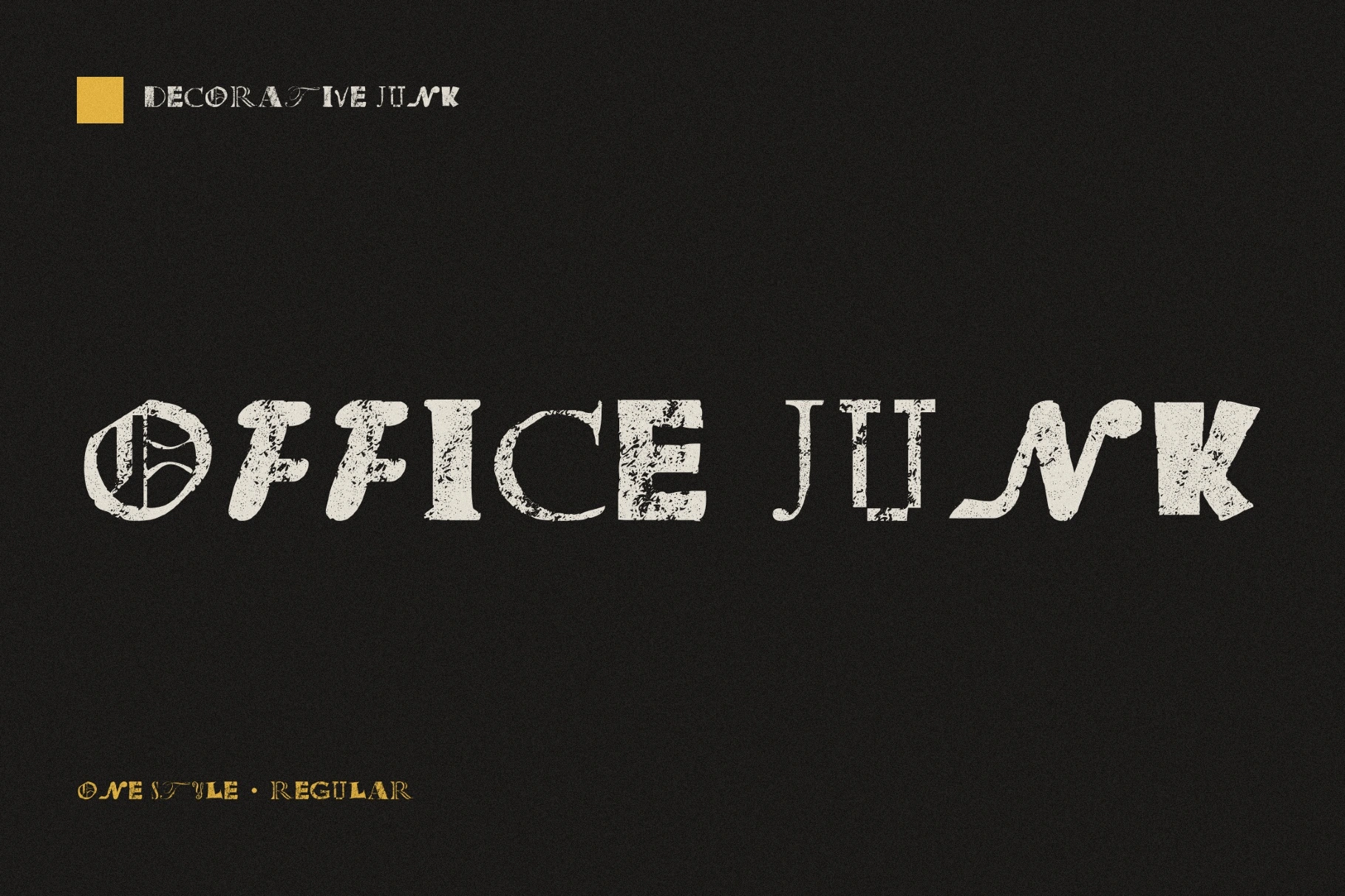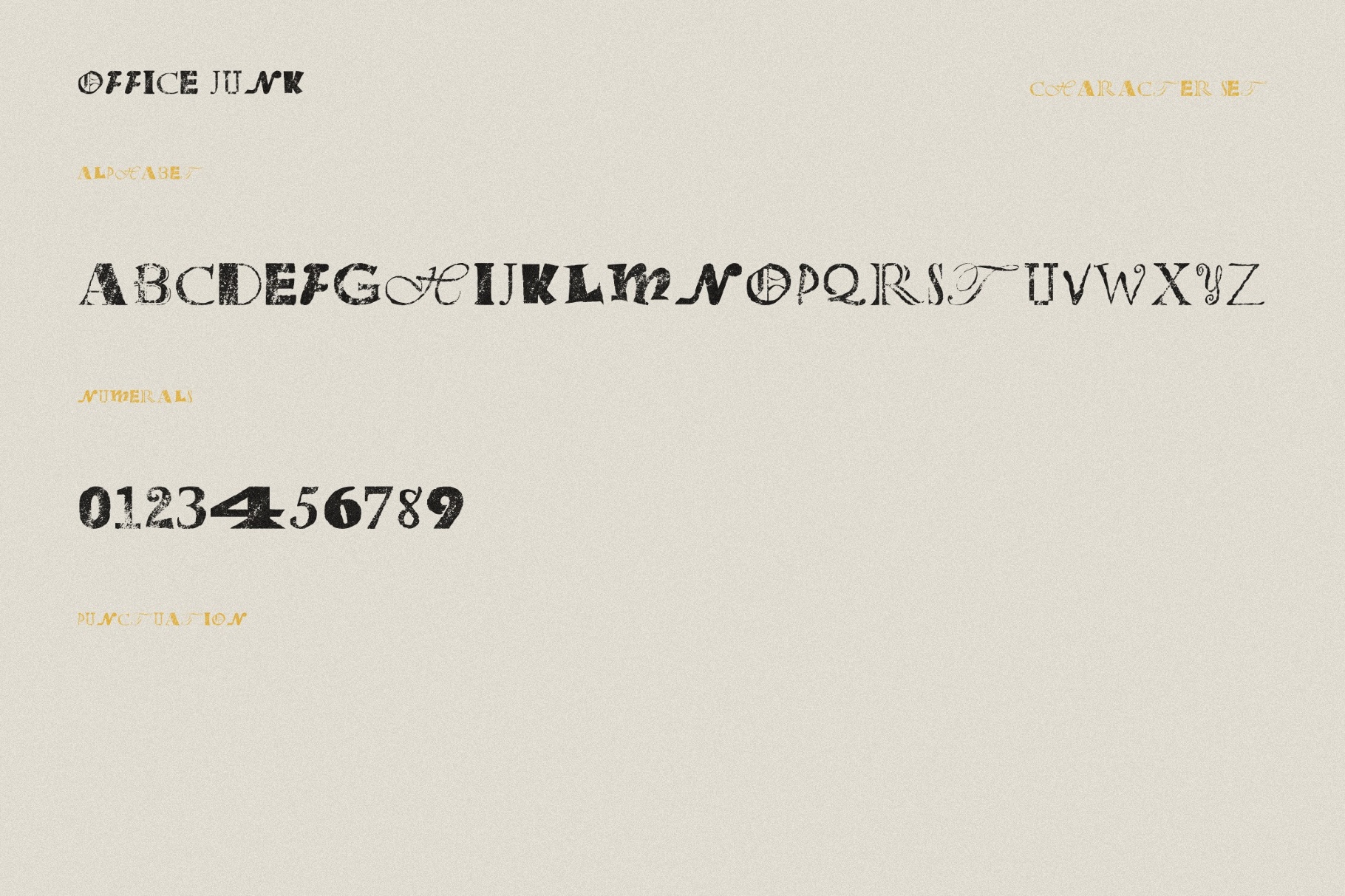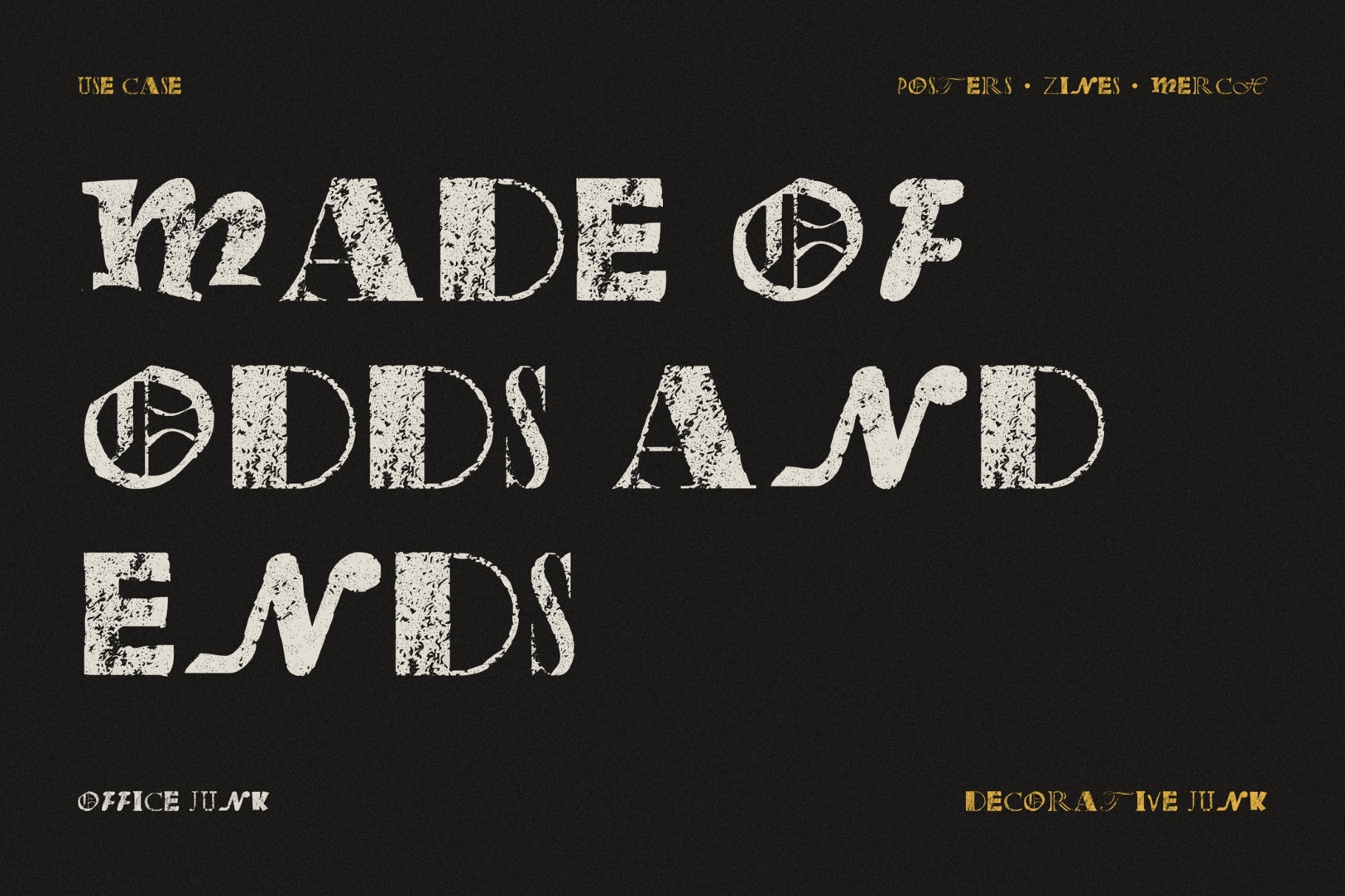
Office Junk - Grunge Poster Font
OfficeJunk
Office Junk mixes grunge type ephemera with eccentric display lettering and creates a messy bureaucratic mood — part office archive, part magazine collage, part workplace comedy. Its distressed shapes, mismatched rhythm, stamped textures, and fax-machine grit suit journal covers, indie posters, editorial headlines, collage branding, sticker packs, album artwork, and social media graphics.
- uppercase letters A–Z;
- numbers;
- multilingual support across the basic Latin script.